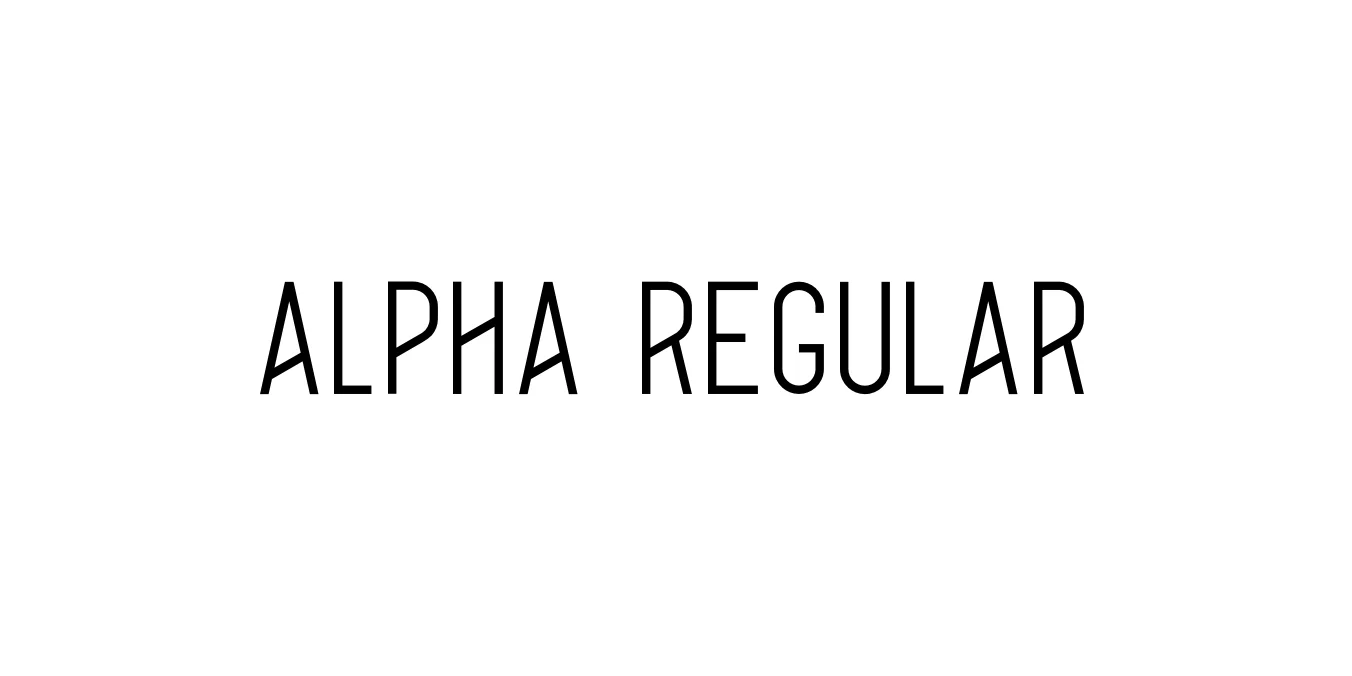
Alpha Regular
Designed by Ufuk Aracioglu
Alpha Regular is a modern sans-serif typeface characterized by its geometric precision and clean, minimalist lines. It was designed to bridge the gap between technical functionality and aesthetic elegance, making it a versatile choice for contemporary design projects. The font features balanced proportions and a high x-height, ensuring legibility across both digital and print mediums.
Over the years, Alpha Regular has become a favorite among graphic designers for branding and editorial work. Its neutral yet sophisticated appearance allows it to blend seamlessly into various contexts without overpowering the primary message. Whether used for body text or headlines, this typeface maintains a consistent professional tone that resonates with modern audiences.
Alpha Regular Best Uses
Ideal for clean, readable body text on blogs and landing pages.
Perfect for modern corporate identities and minimalist logo marks.
Great for high-impact headlines in digital and print ads.
Excellent for mobile app interfaces and dashboard typography.